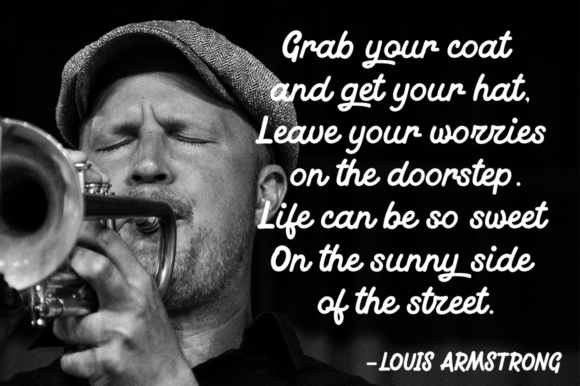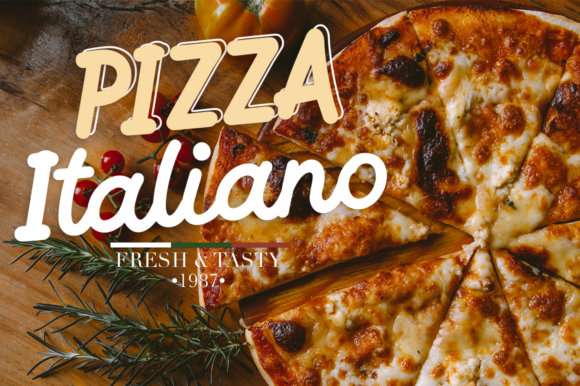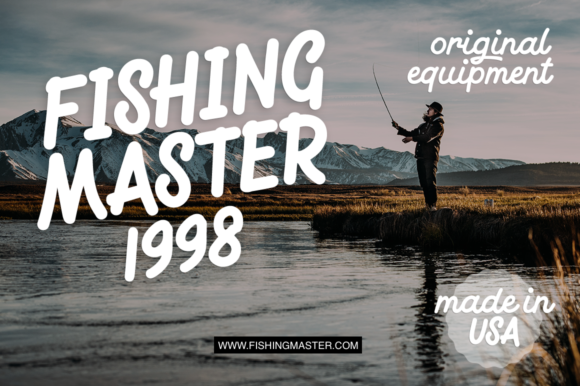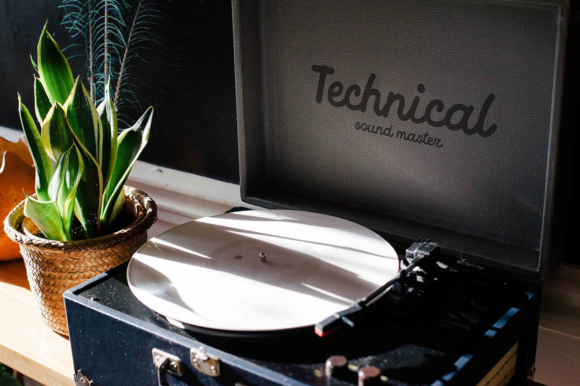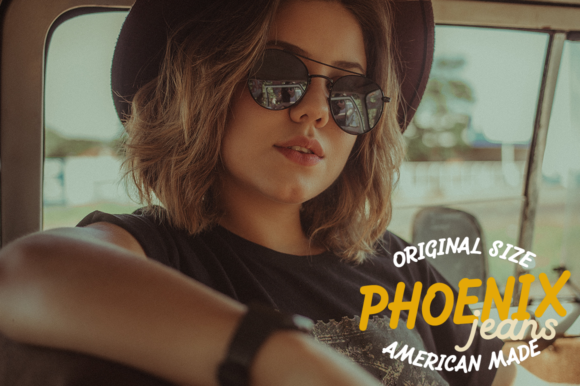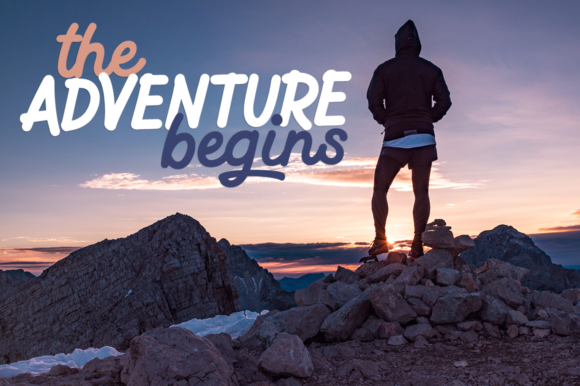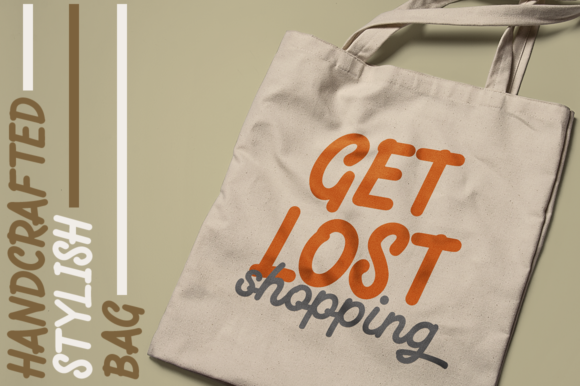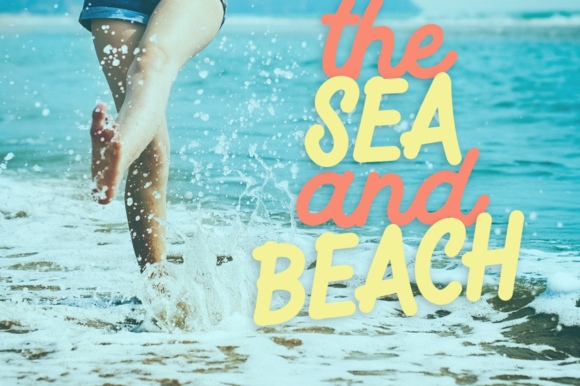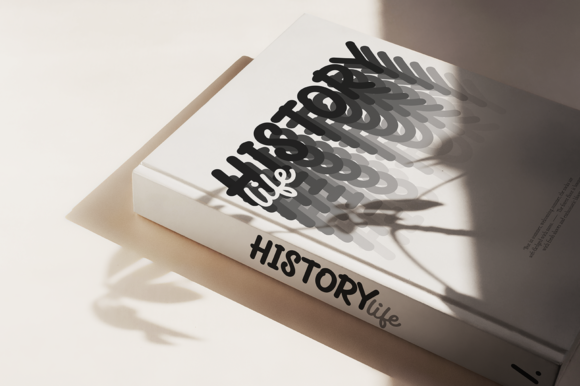
Magnatec Font
About Magnatec Font
Magnatec script is a new, fresh, handmade font. It has thick, clean letters that will give your design a striking look.
Magnatec is ideal for branding and decorating your project, or just for a small business, book covers, stationery, marketing, magazines and more.